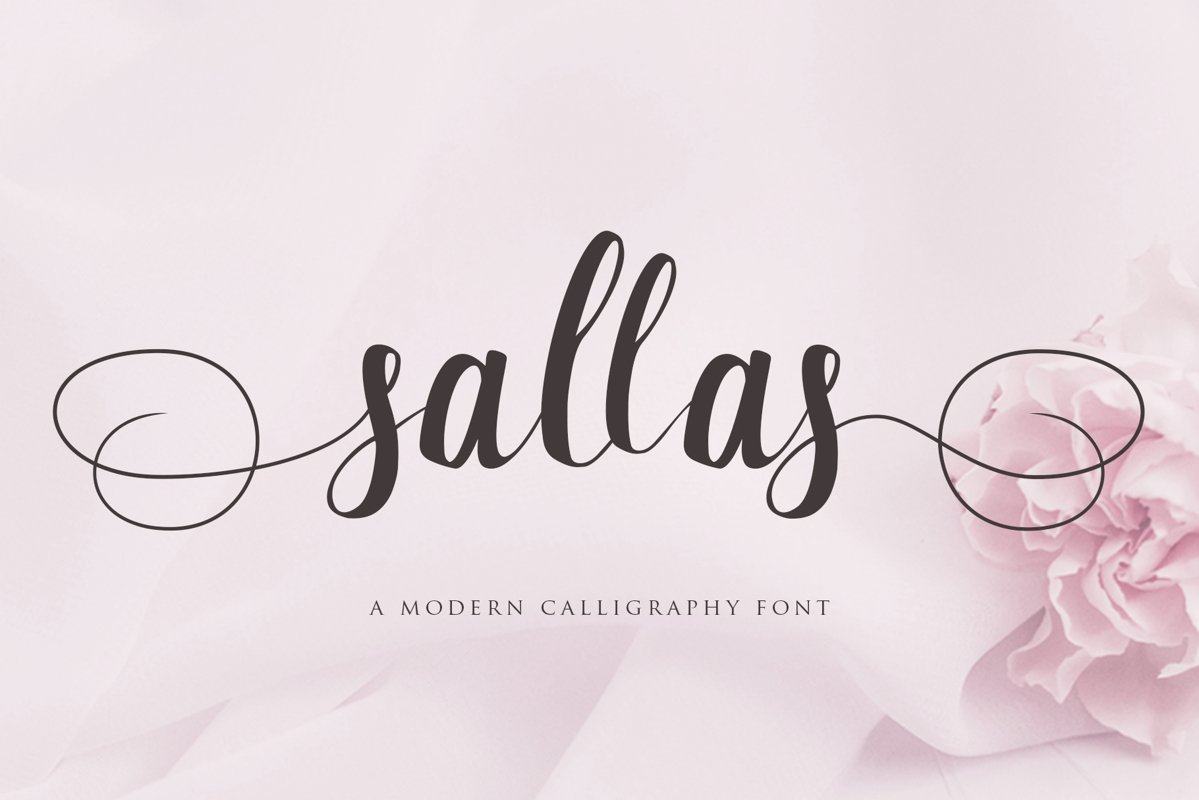
Sallas
We present our latest Sallas Font, which is extraordinary
and enchanting, but also very modern. Sallas is perfect for your various
projects such as logos, branding, invitations, stationery, wedding designs,
social media posts, advertisements, product packaging, posters, product
designs, labels, photography, watermarks, special events or whatever, quotes, fashions,
etc.
This font is coded PUA which means you can access all
beautiful and easy flying machines, It also has many special features including
alternative glyphs and ligature.
Foreign languages
support:
ÀÁÂÃÄÅÆÇÈÉÊËÌÍÎÏÐÑÒÓÔÕÖØÙÚÛÜÝßàáâãäåæçèéêëìíîïðñòóôõöøùúûüýÿ
FEATURES:
• Number
• Punctuation
• Multilingual
• PUA Encode
• Opentype